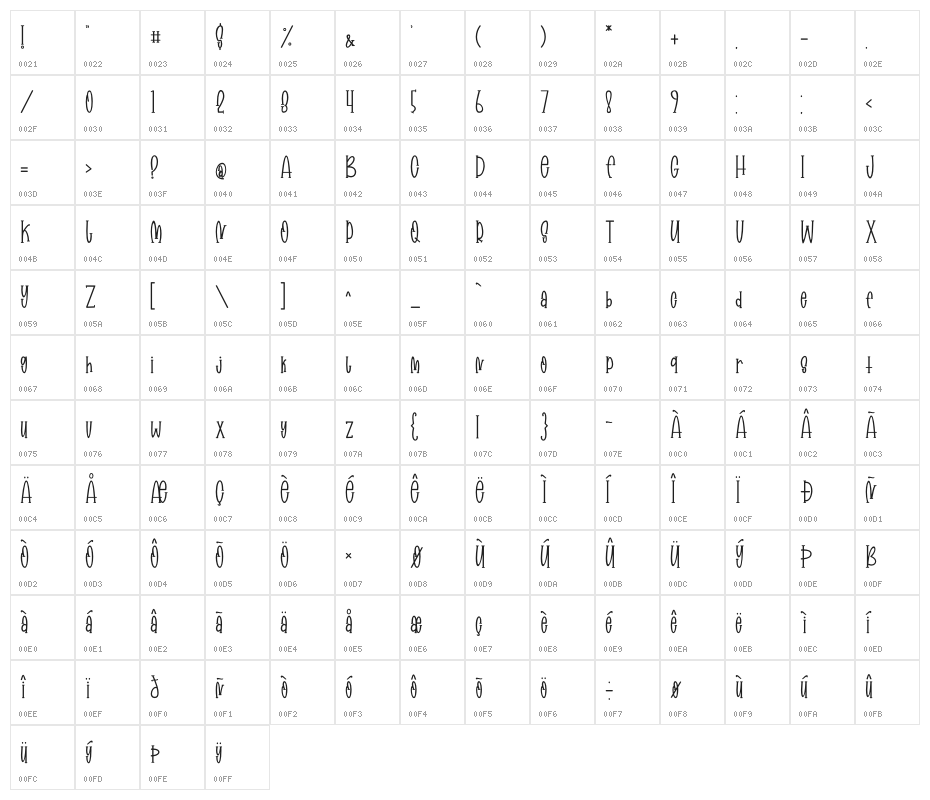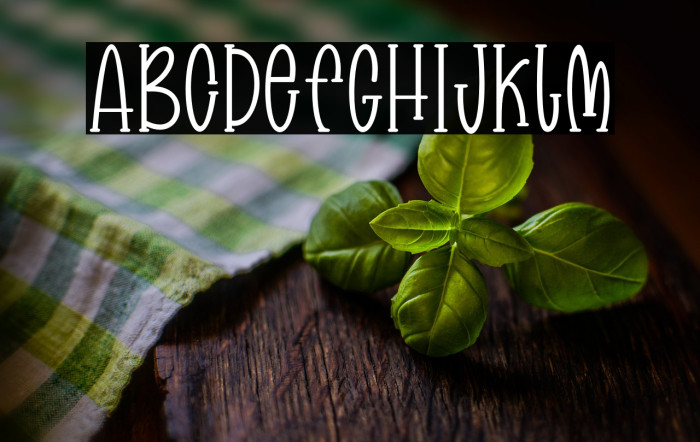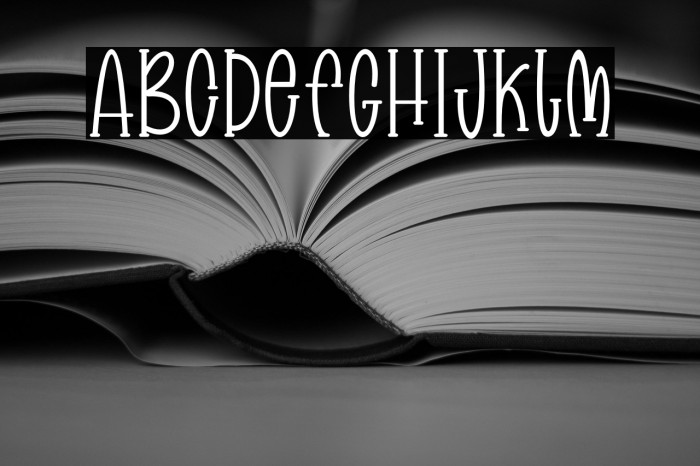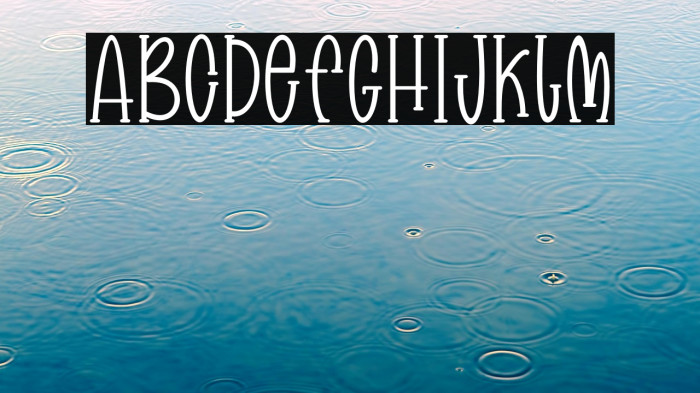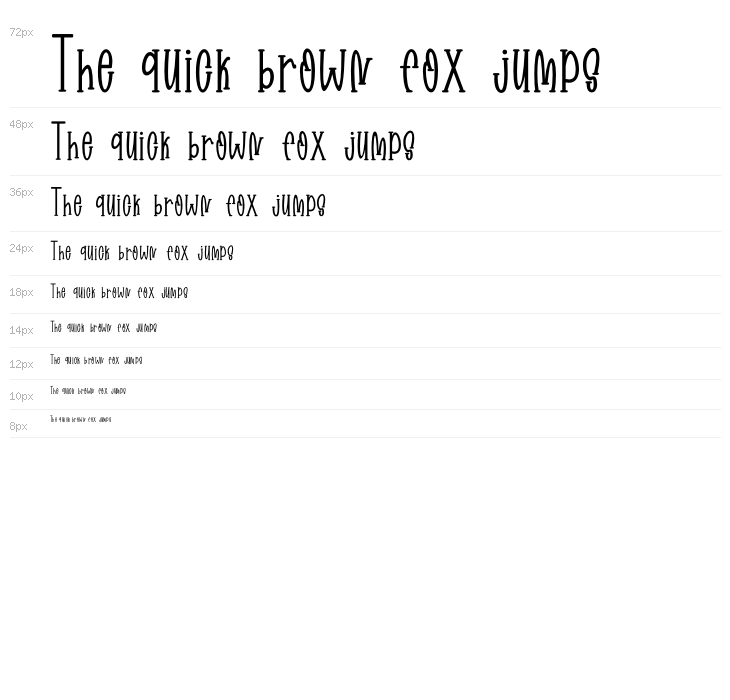
Magician Font
Magician Description
This font features a whimsical and playful design, characterized by its tall, narrow letters with exaggerated curves and loops. The uppercase letters have a unique flair, with some characters like 'R' and 'Q' showcasing distinctive tails. The lowercase letters maintain the playful style, with 'g' and 'y' having particularly notable descenders. Numbers are consistent with the overall style, featuring similar curves and loops. Special characters are creatively designed, adding to the font's decorative appeal. The font's overall appearance is both fun and artistic, making it suitable for creative projects.
Proposed ProjectsIdeal for children's book covers, playful branding, party invitations, and creative posters.